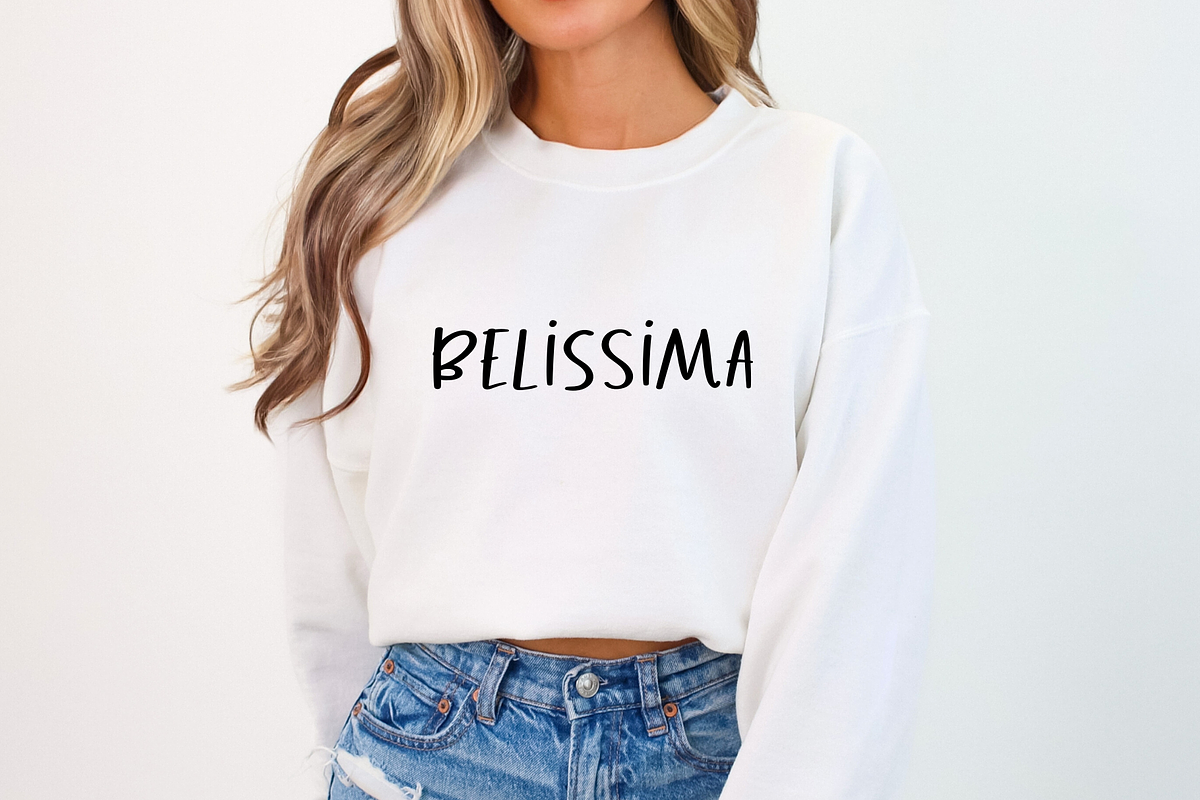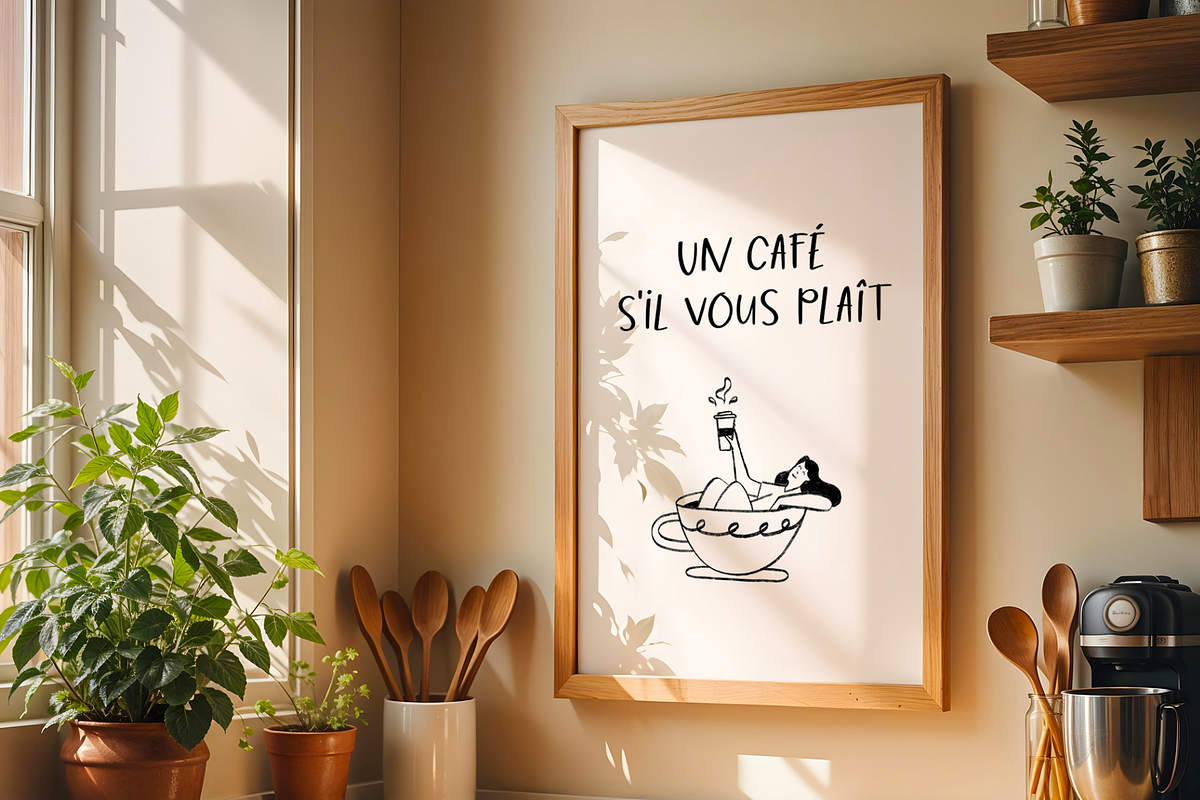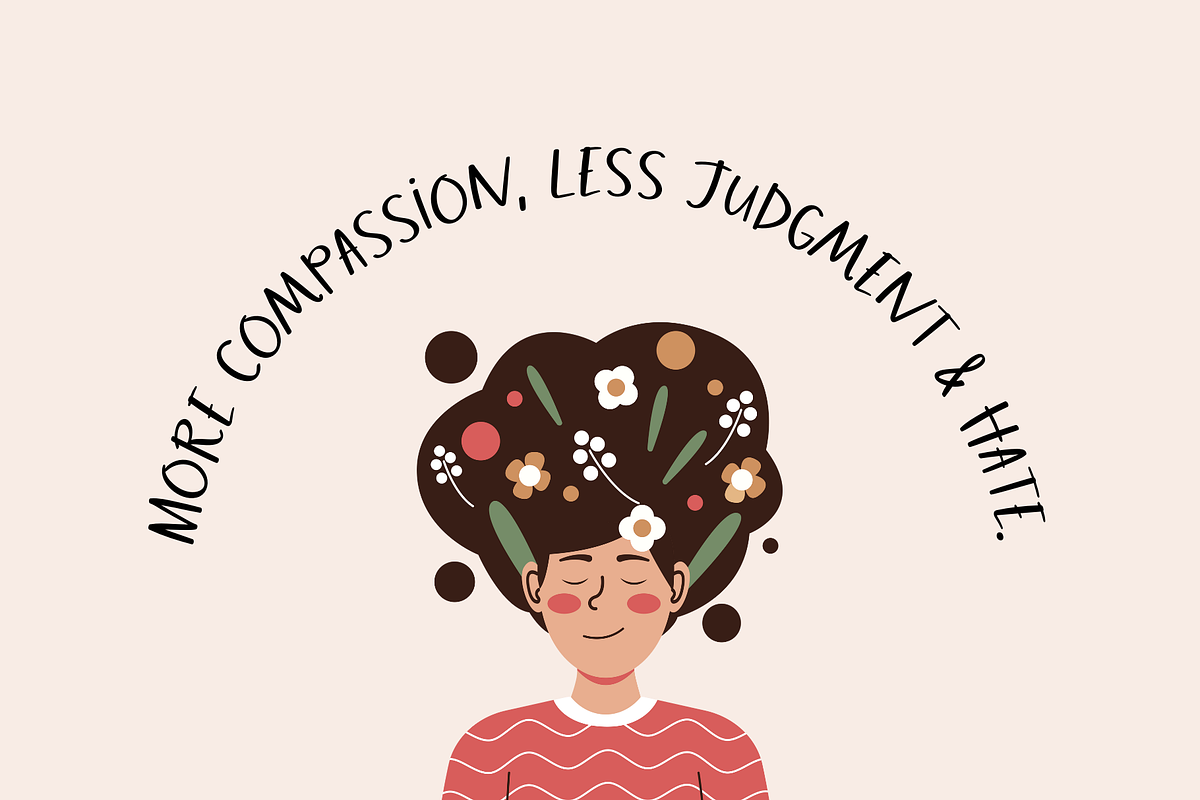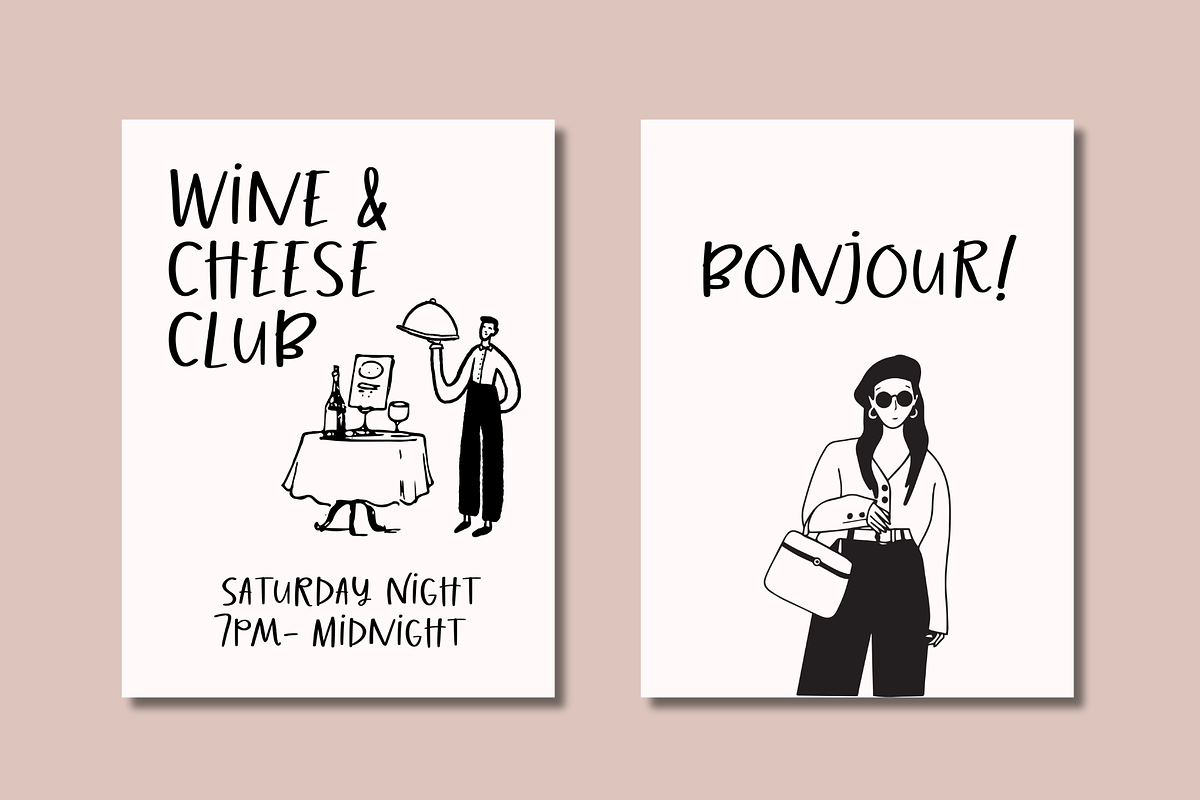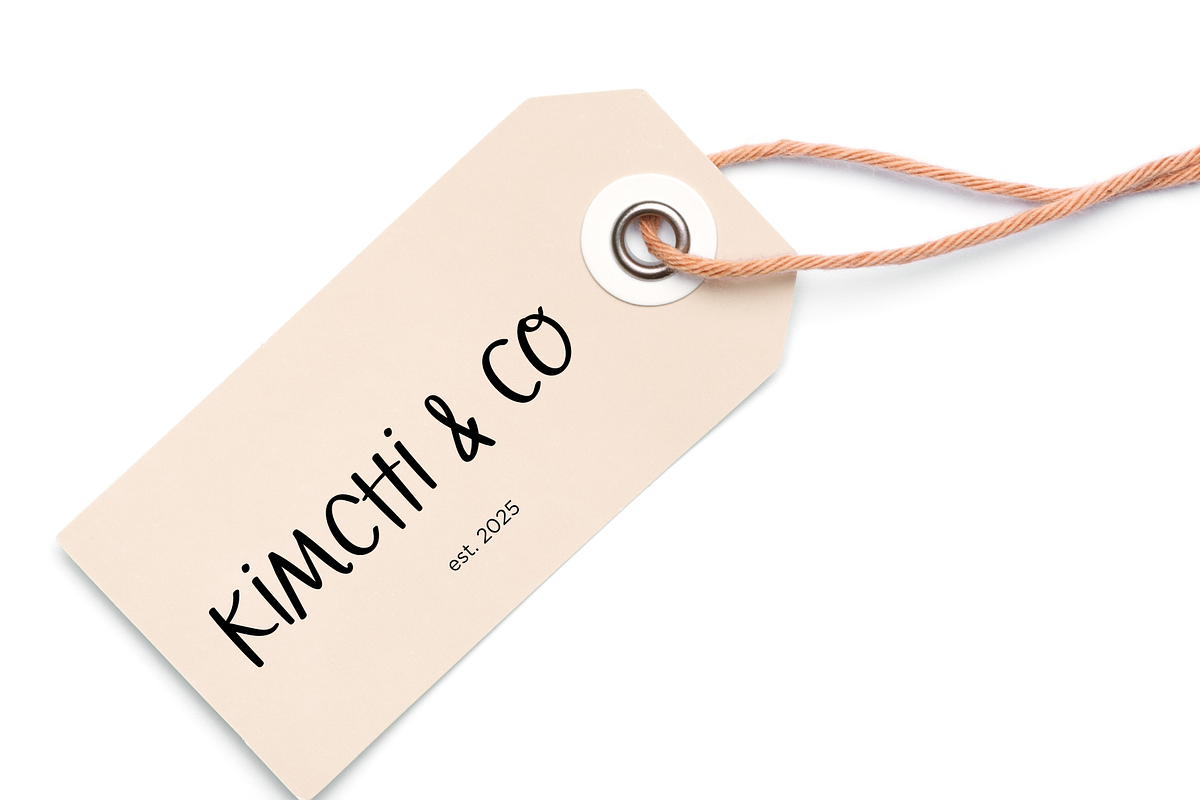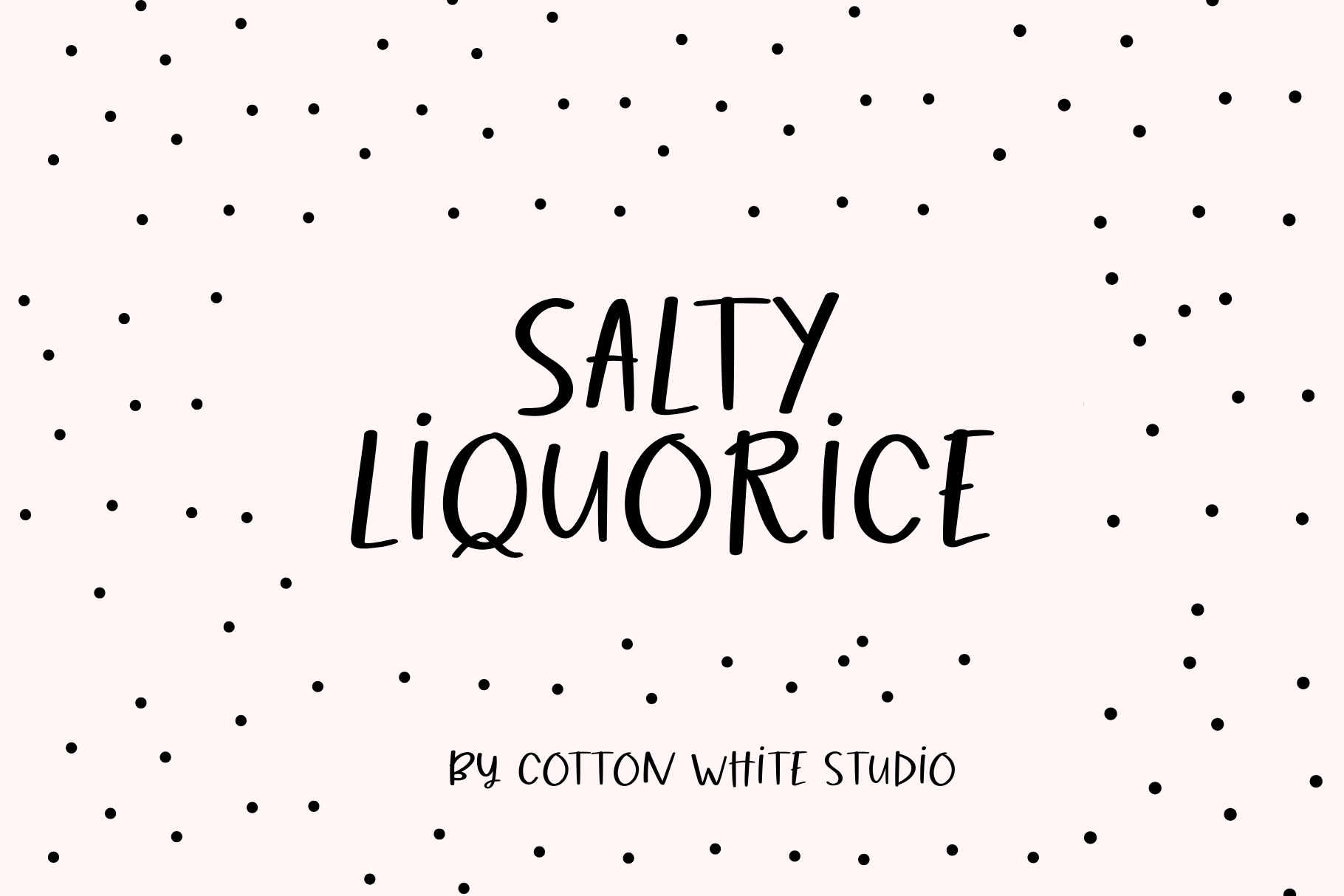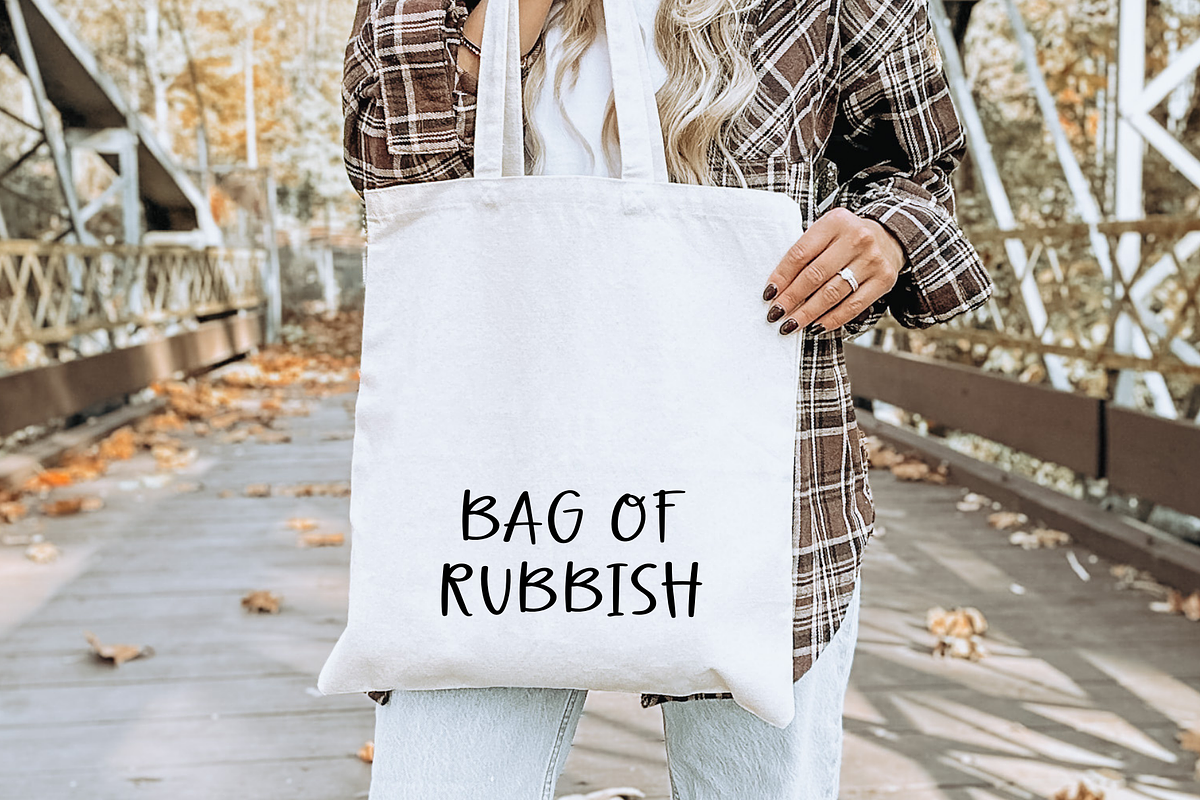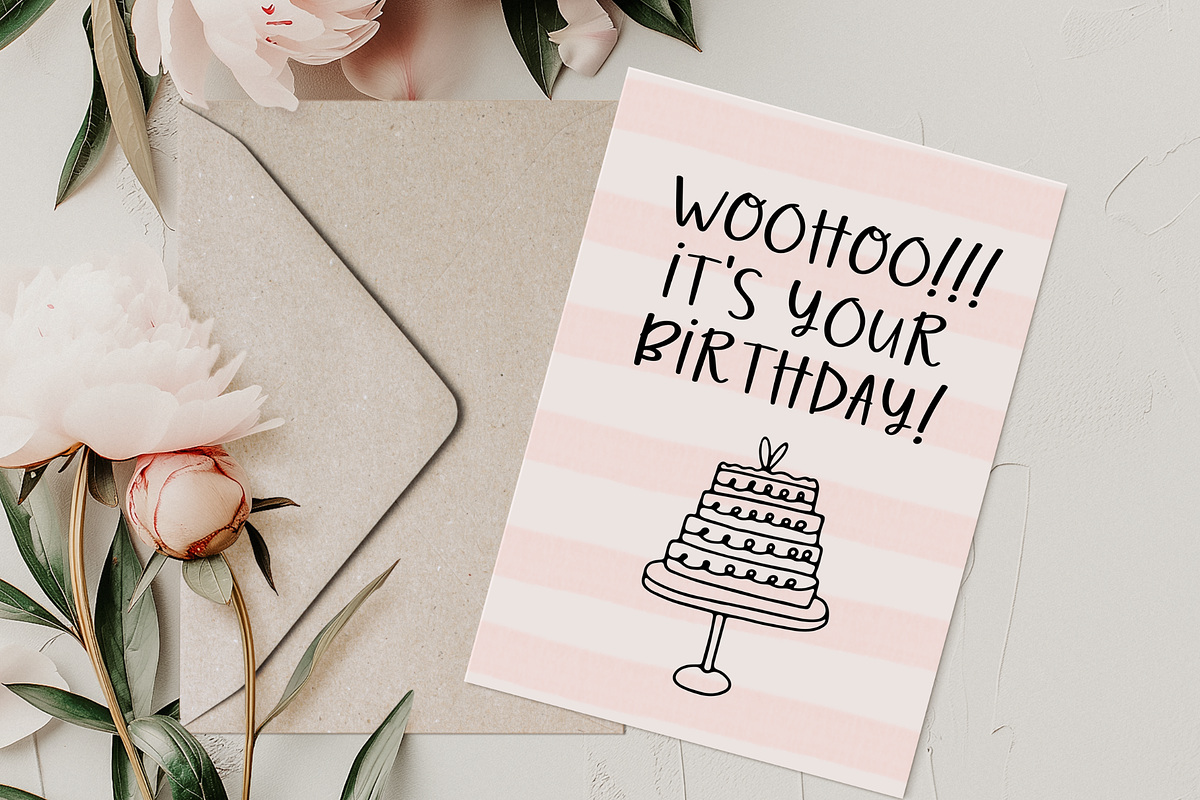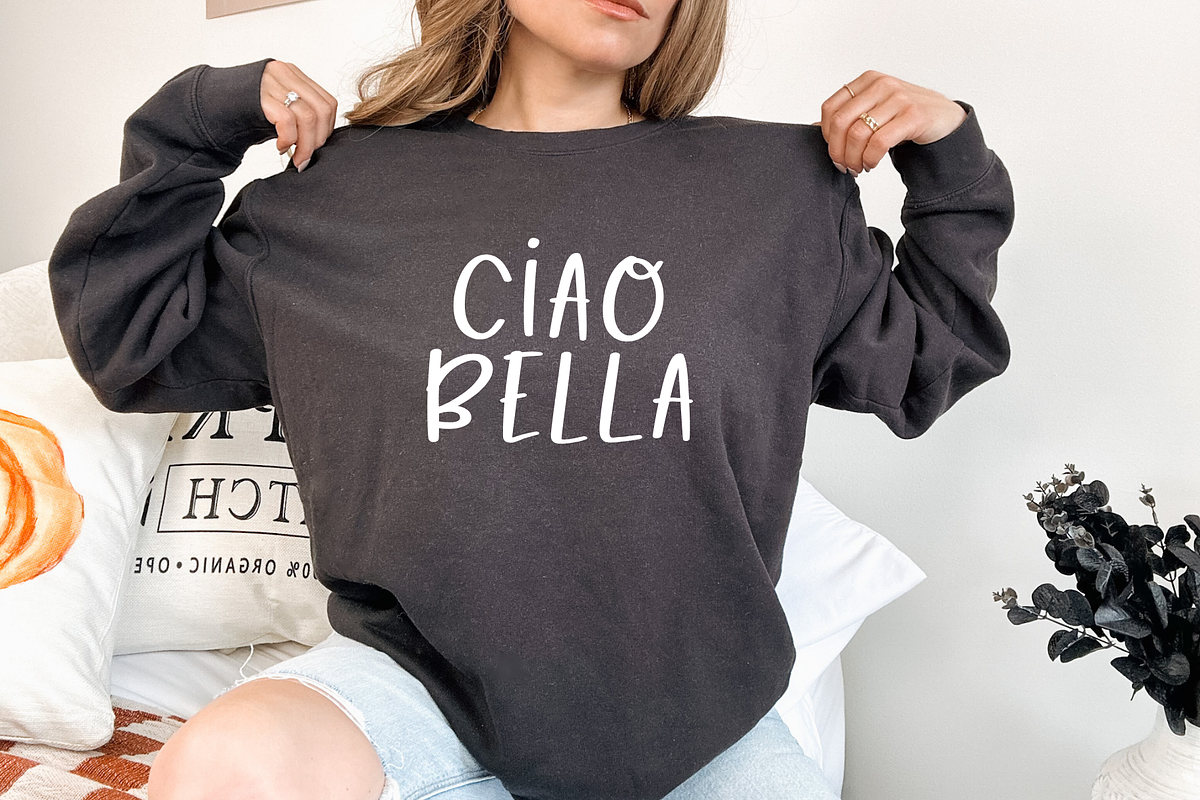
Salty Liquorice Font
A fun and whimsical font that adds a playful touch, making it ideal for social media, creative projects, invitations, posters, crafts, and much more!